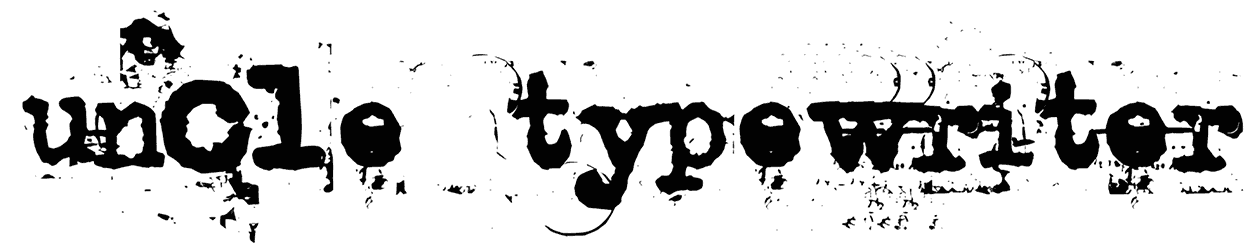
Uncle Typewriter Font
Uncle Typewriter font represents an old and outdated typewriter machine. The letters were erratic and cluttered, and some characters were not even legible because ink droplets were scattered around them.